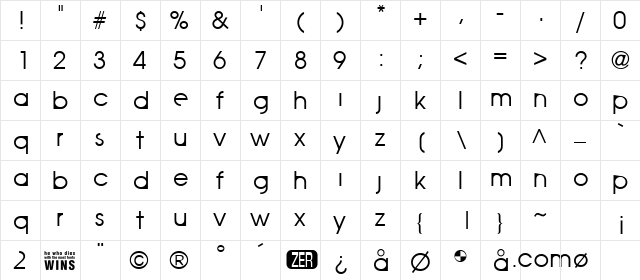
Seraphic Organism Regular
Design Context for Seraphic Organism Typeface
Seraphic Organism is a composed and adaptable typeface that performs quietly and consistently across a wide range of design contexts.